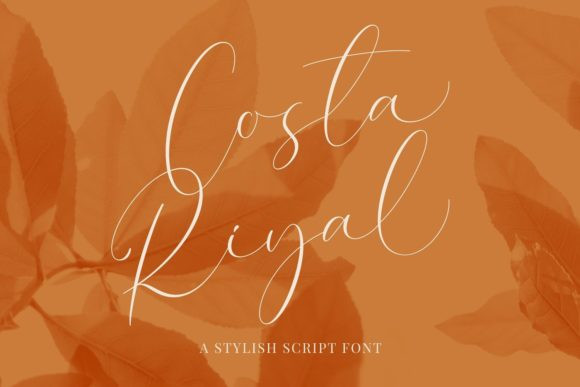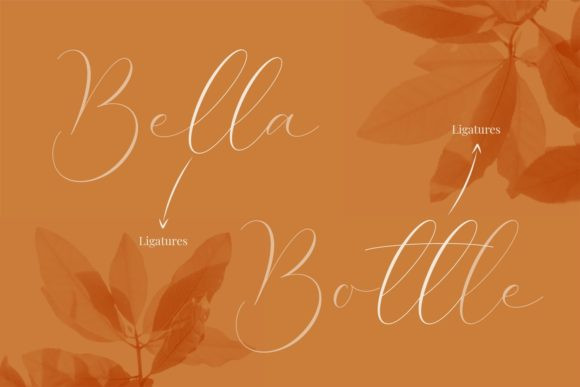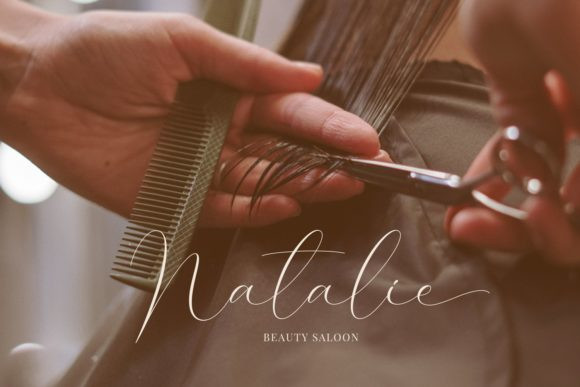
Costa Riyal Font
Costa Riyal FontCosta Riyal is an elegant handwritten font. It is perfect for your various projects such as logos, branding, invitations, stationery, wedding designs, social media posts, advertisements and much more!